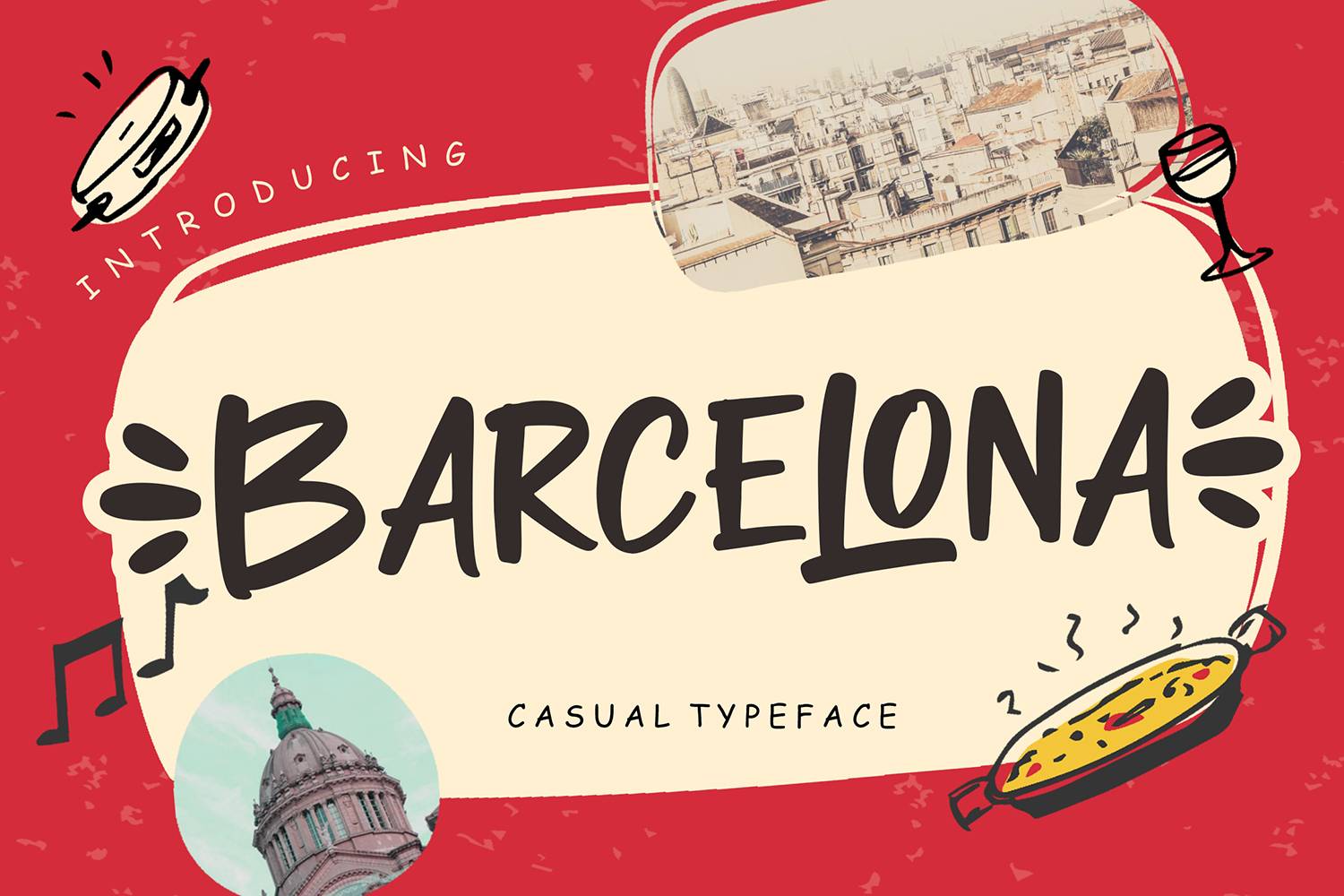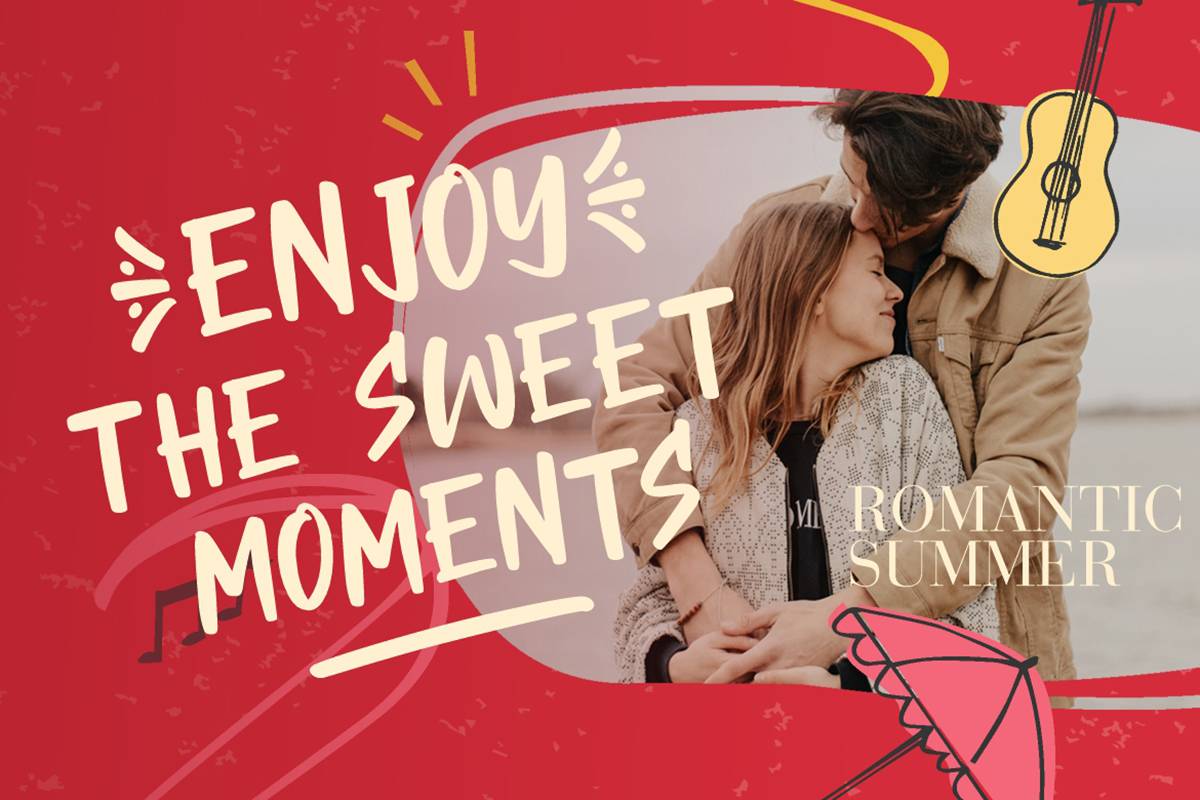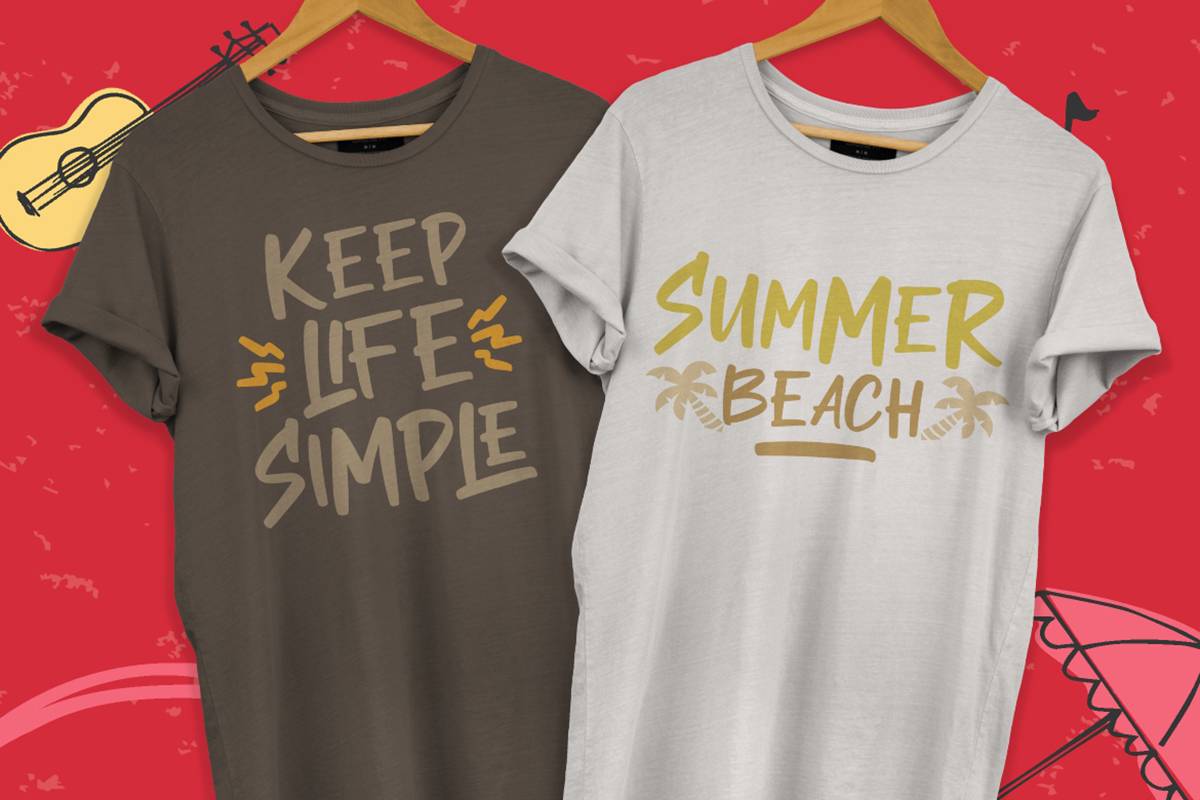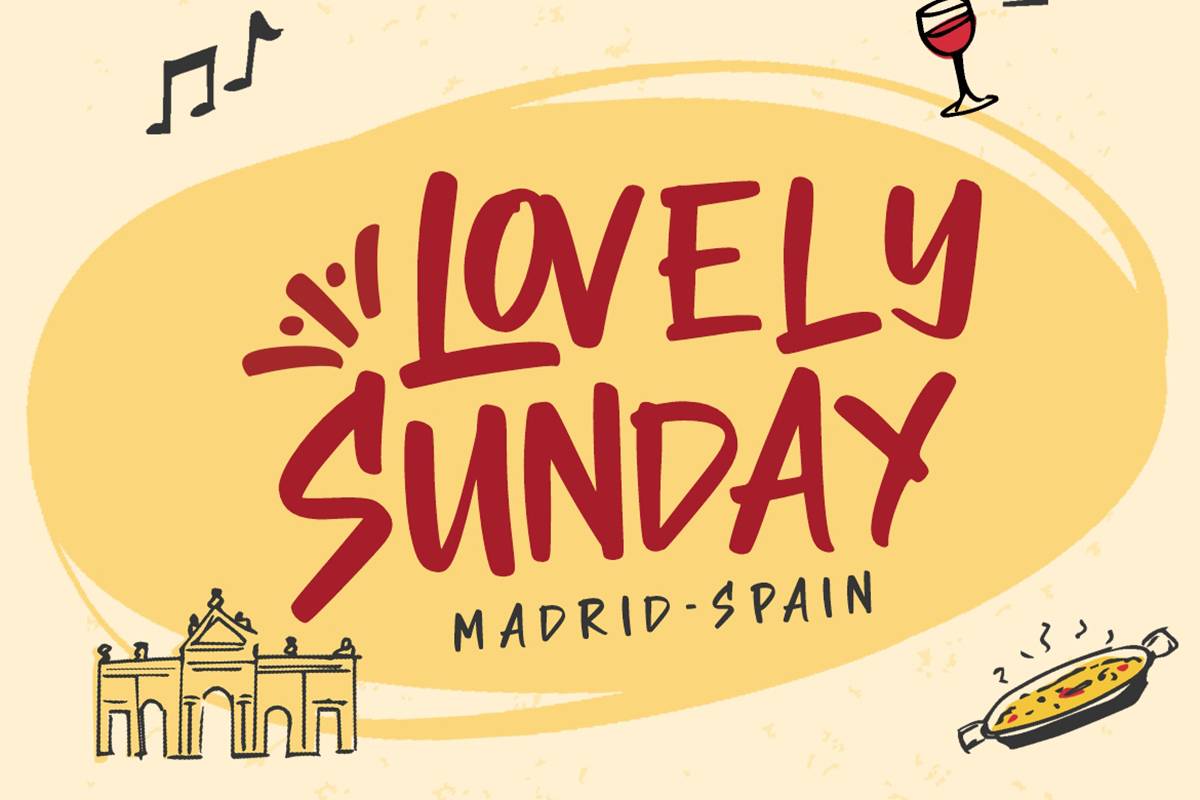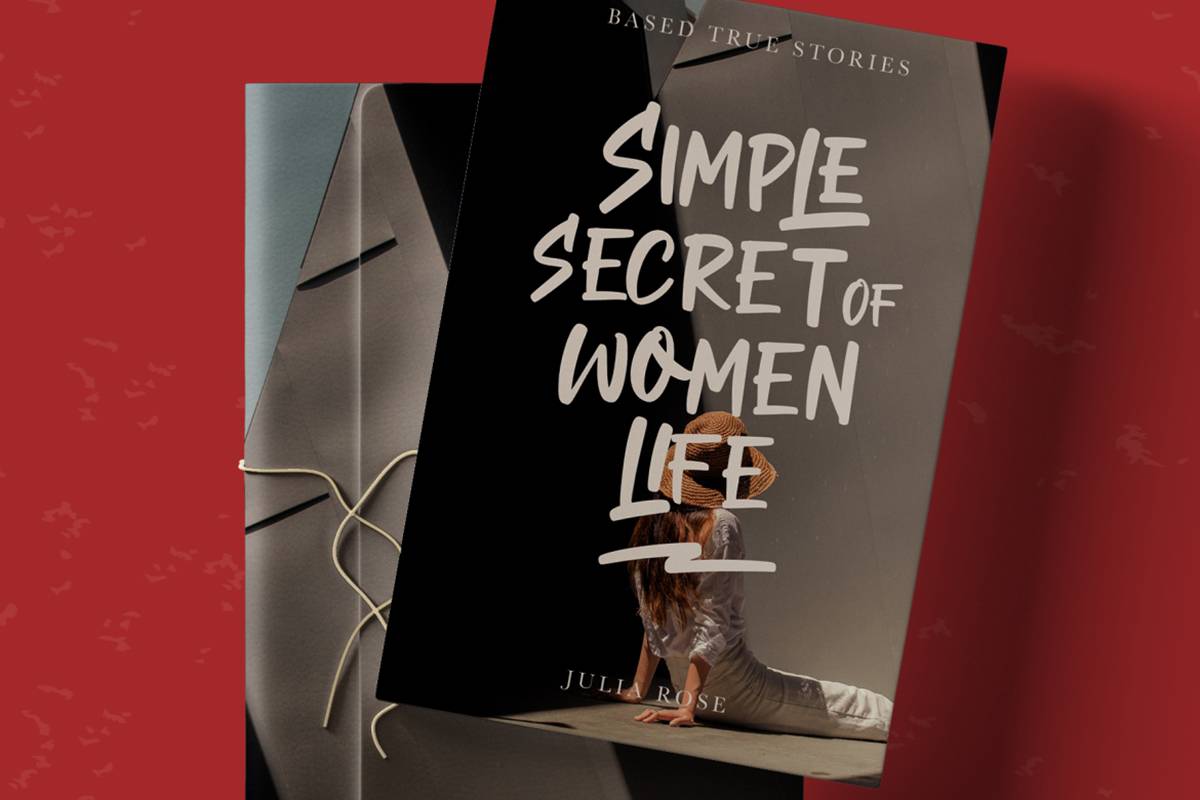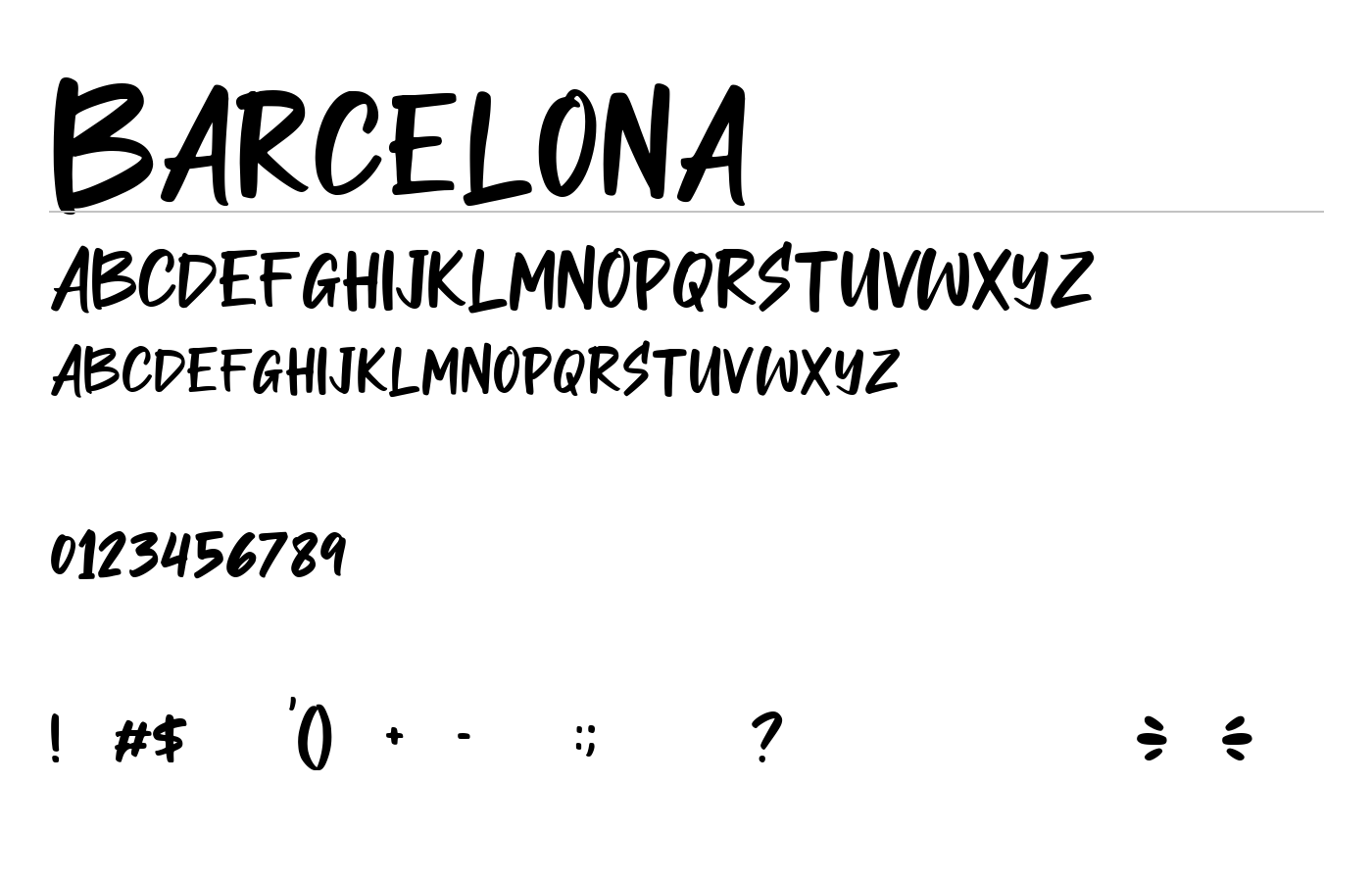
Barcelona Font is a bold and playful handwritten typeface with a casual, brush-like texture that adds a friendly and energetic vibe. Its tall, slightly condensed letterforms and informal style make it ideal for creative projects, logos, posters, and branding that seek a lively and approachable personality. This font works well where an authentic, human touch is needed to engage audiences with a modern, informal feel.
Barcelona Font
About Barcelona Font
| Font family | Barcelona Font |